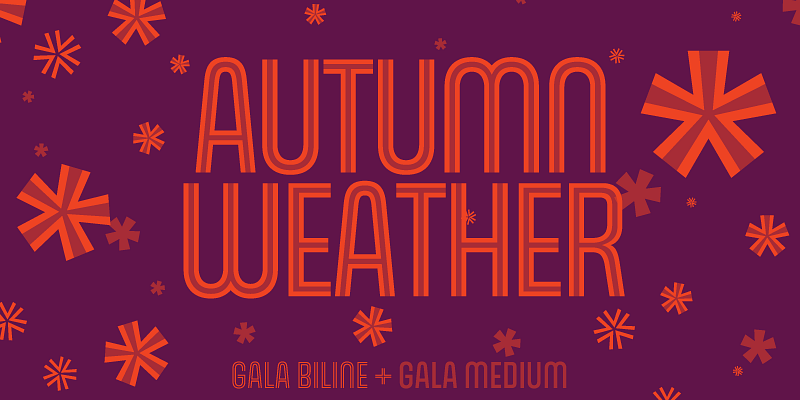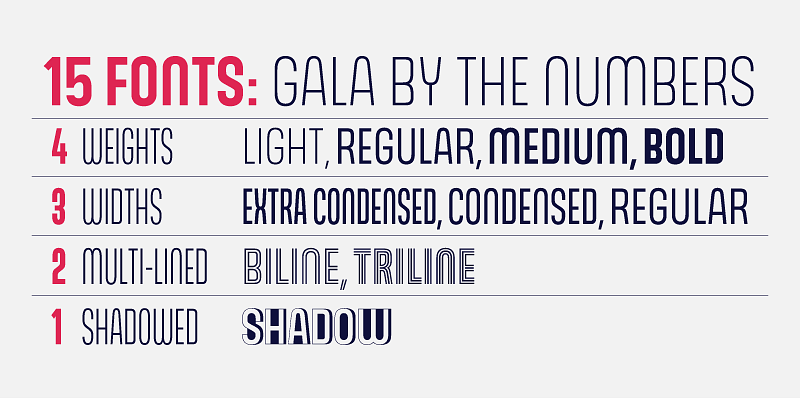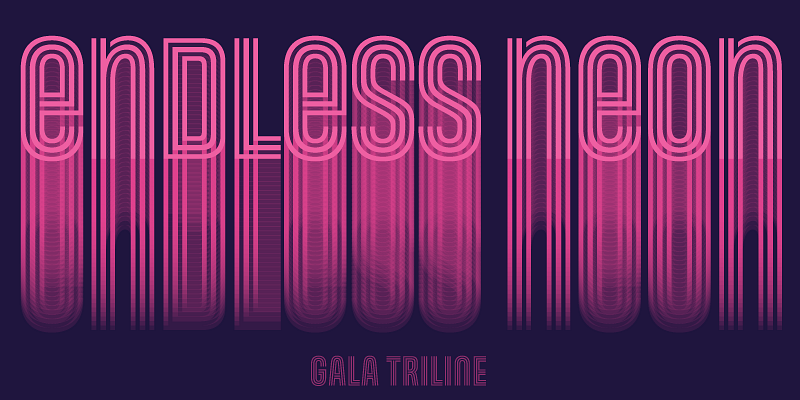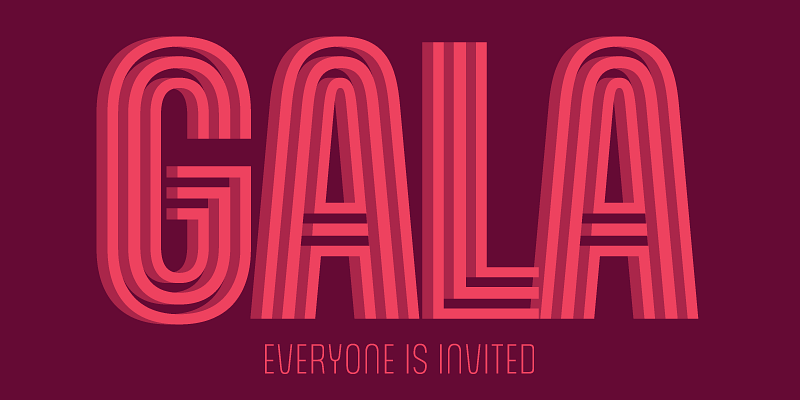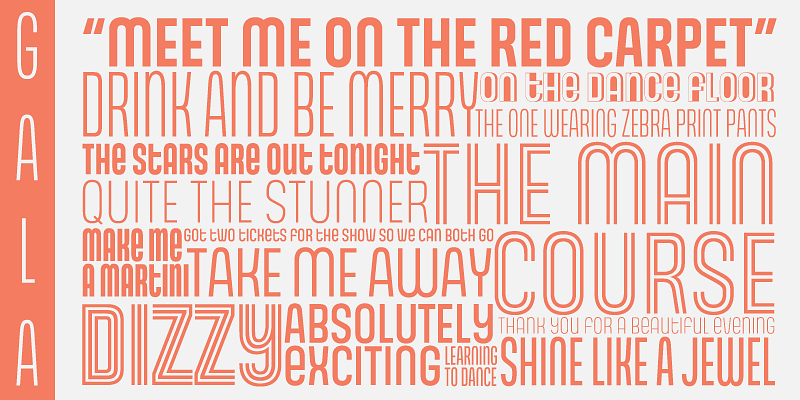
Gala is a retooling and major expansion of a face called Neon, published by Nebiolo in 1935. It was one of the earliest modular faces with a clear-cut, minimal unicase construct, and inspired countless designs across three technologies.